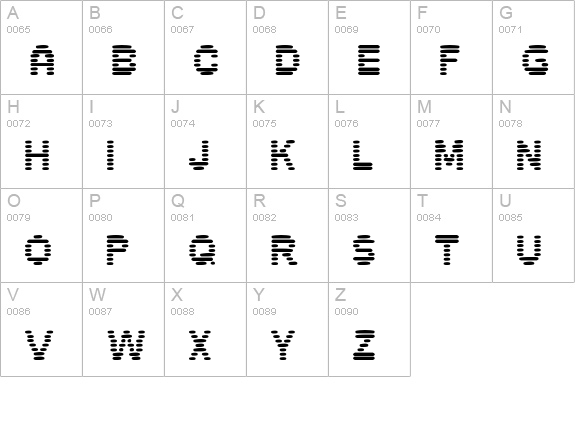
pixelino Font Details
Pixelino is a captivating and versatile font that will add a touch of playfulness and whimsy to any design project. This unique typeface is perfect for those looking to create eye-catching and memorable designs that stand out from the crowd. With its pixelated appearance, Pixelino brings a nostalgic charm, reminiscent of classic video games and retro digital displays. Not only does Pixelino offer a visually striking aesthetic, but it also provides excellent legibility, making it ideal for both display and body text. Its clean and well-defined letterforms ensure that your message is conveyed with clarity and impact. One of the best things about Pixelino is that it is completely free. Yes, you heard it right! This amazing font is freely available to download at FontsMarket.com, a trusted source for high-quality fonts. Whether you're a professional designer or a creative enthusiast, you can now access this fantastic font without spending a dime. Pixelino's versatility knows no bounds. It can be used for a wide range of design projects, including branding, packaging, posters, websites, and more. Its bold and energetic character will inject a sense of fun and excitement into any design, instantly grabbing the attention of viewers. Get ready to unleash your creativity with Pixelino. Download this incredible font today from FontsMarket.com, and start adding a touch of retro-inspired charm to your designs. With its irresistible combination of style, legibility, and affordability, Pixelino is a must-have font for any design arsenal. Don't miss out on this fantastic opportunity to elevate your creations and leave a lasting impression.